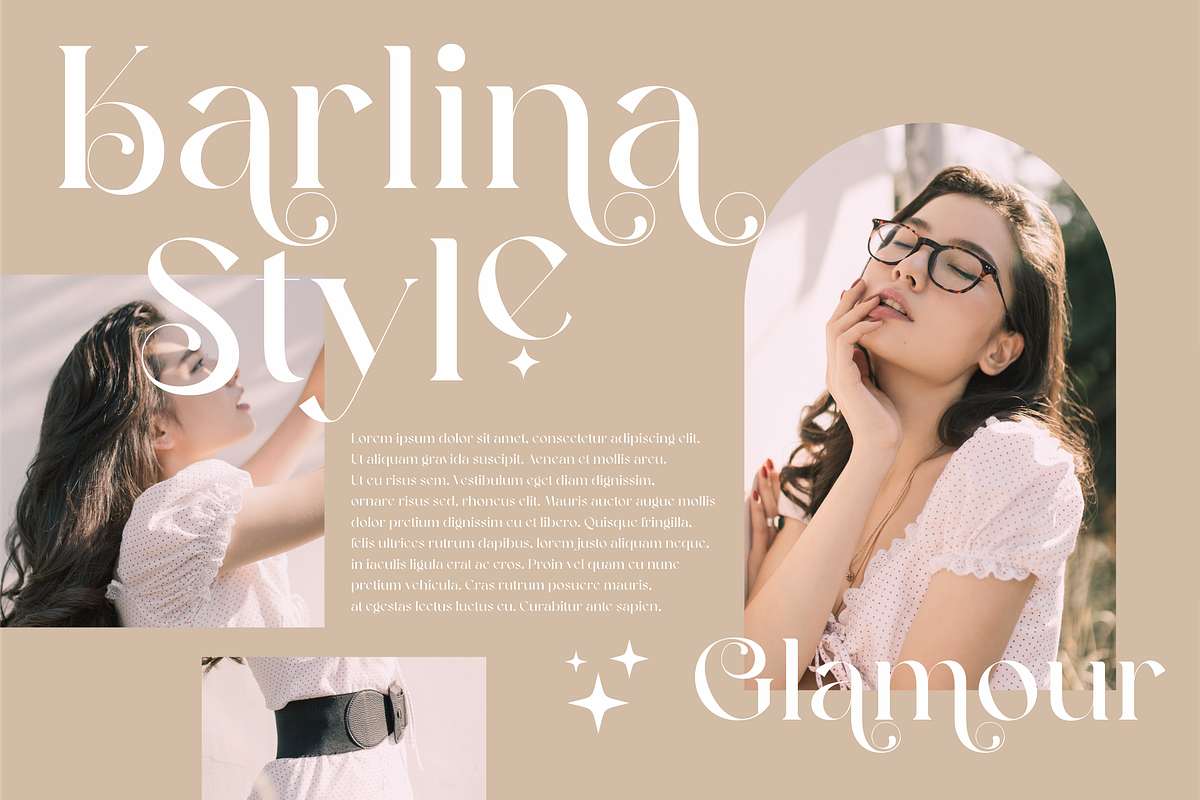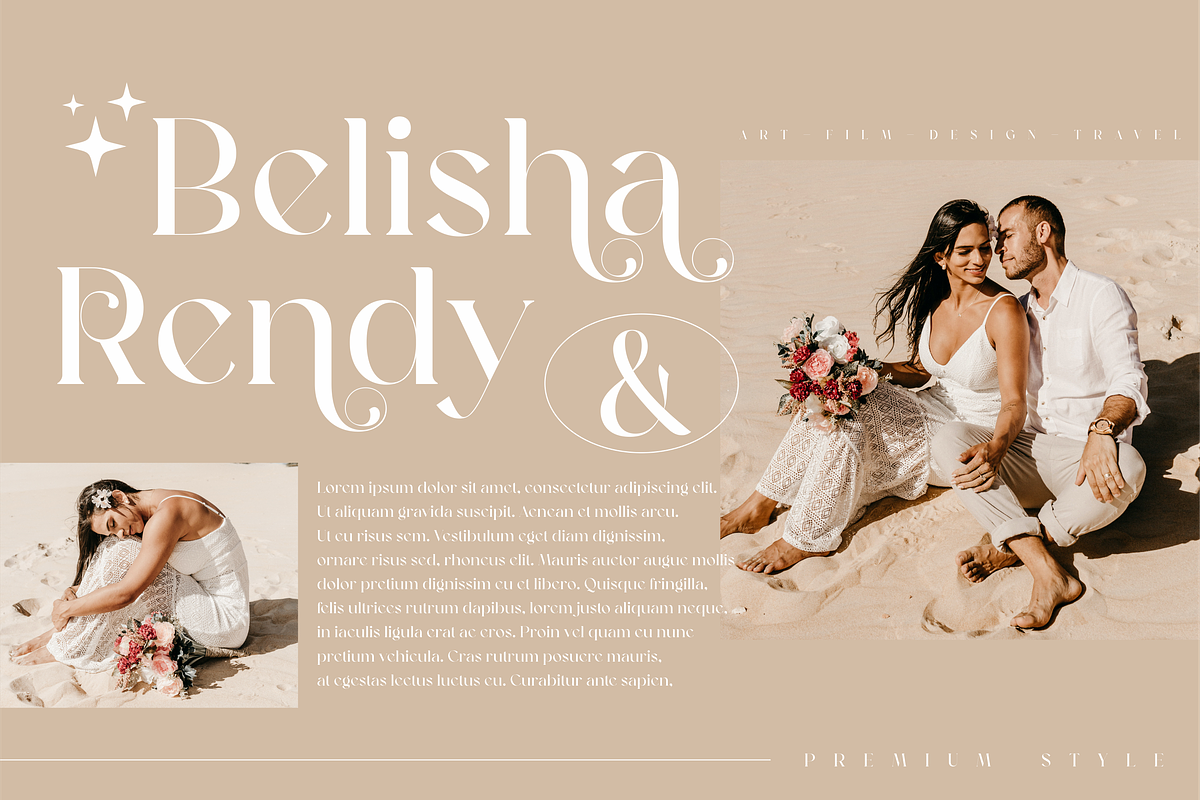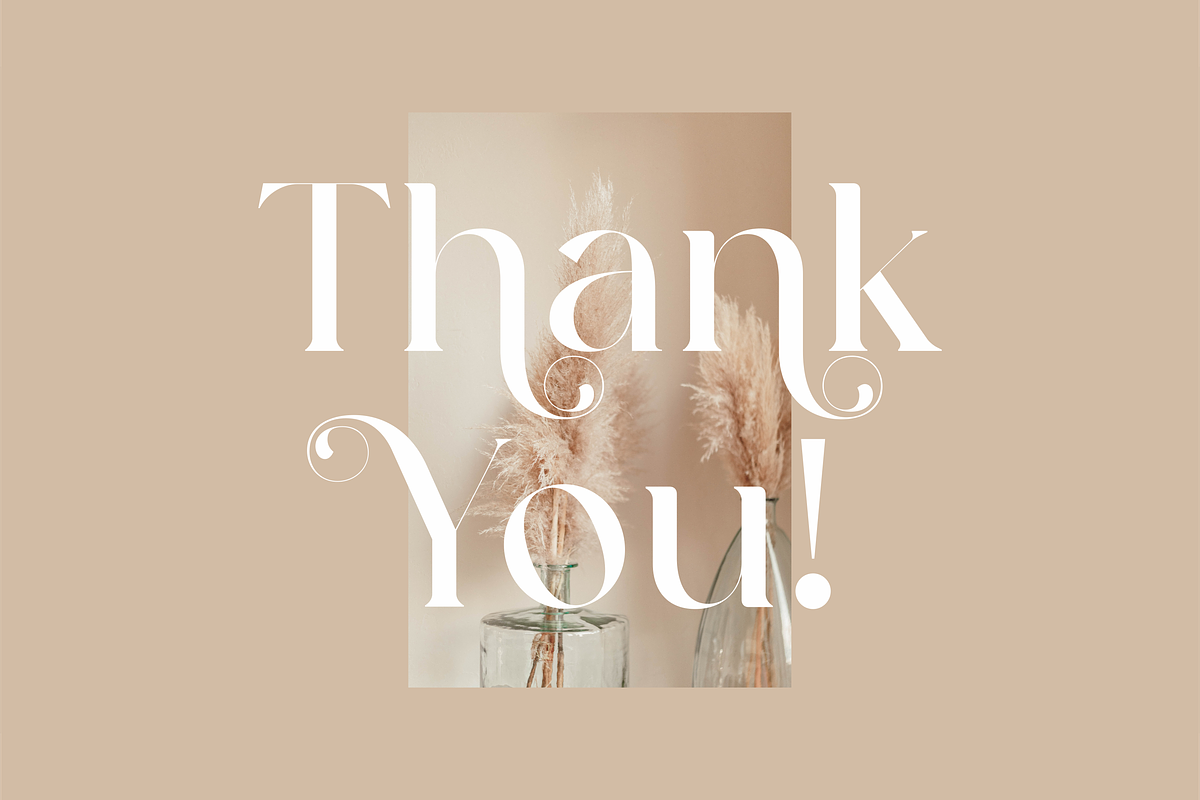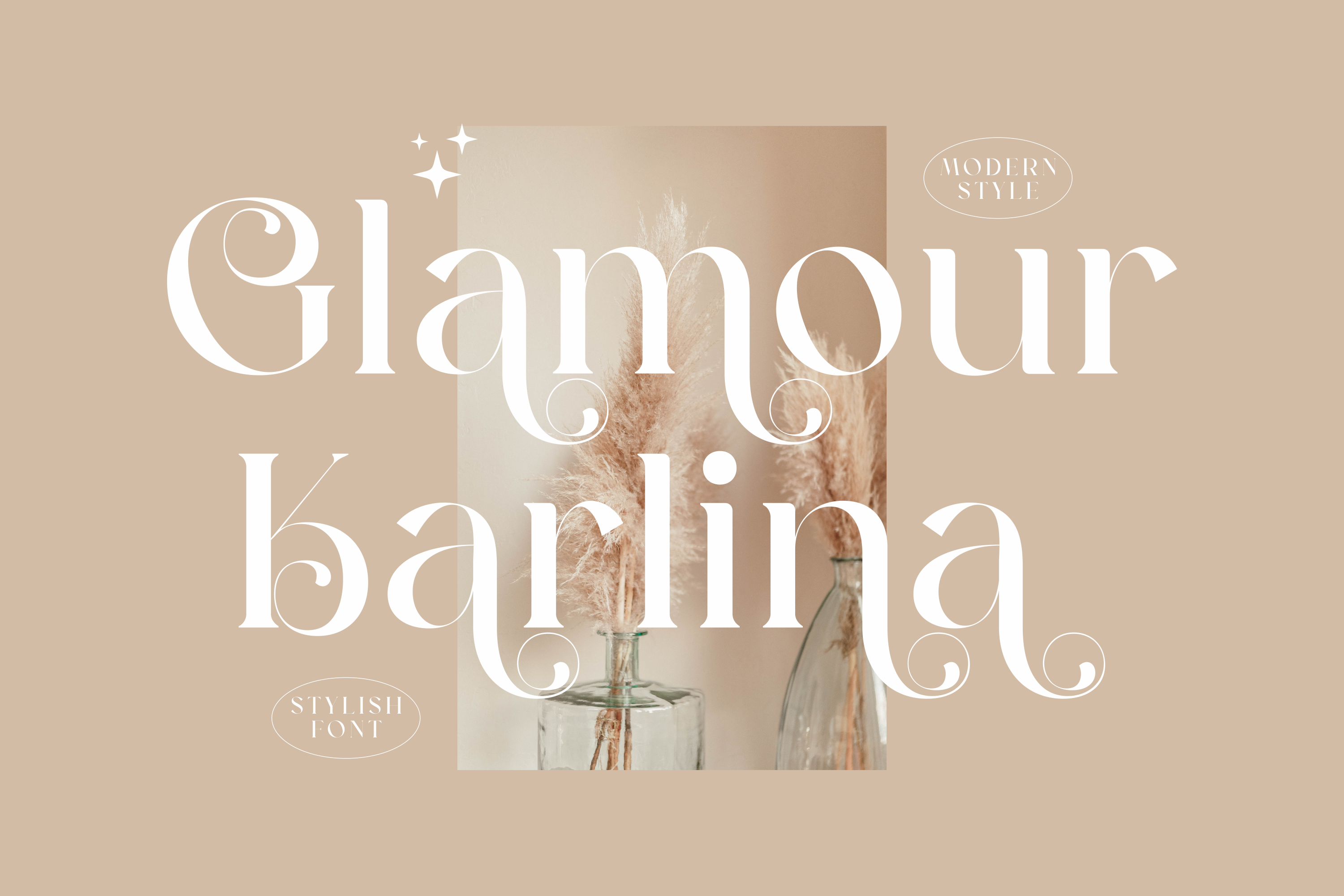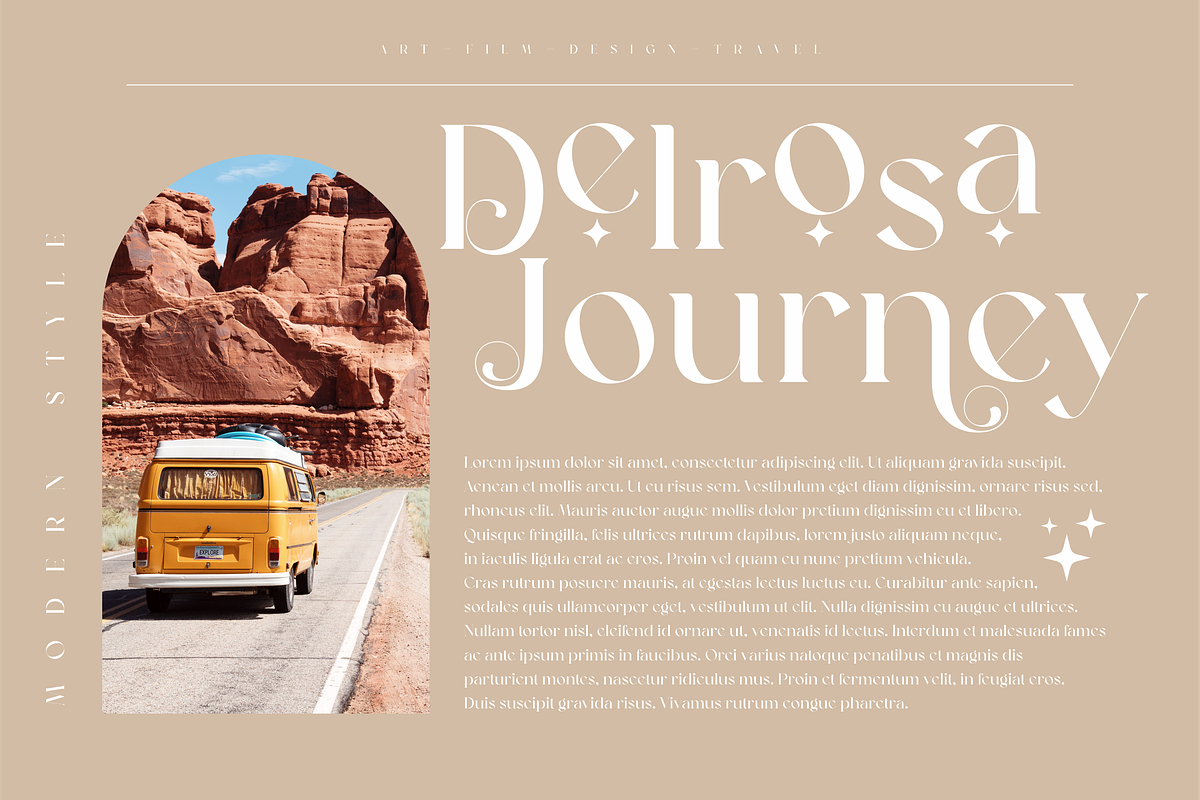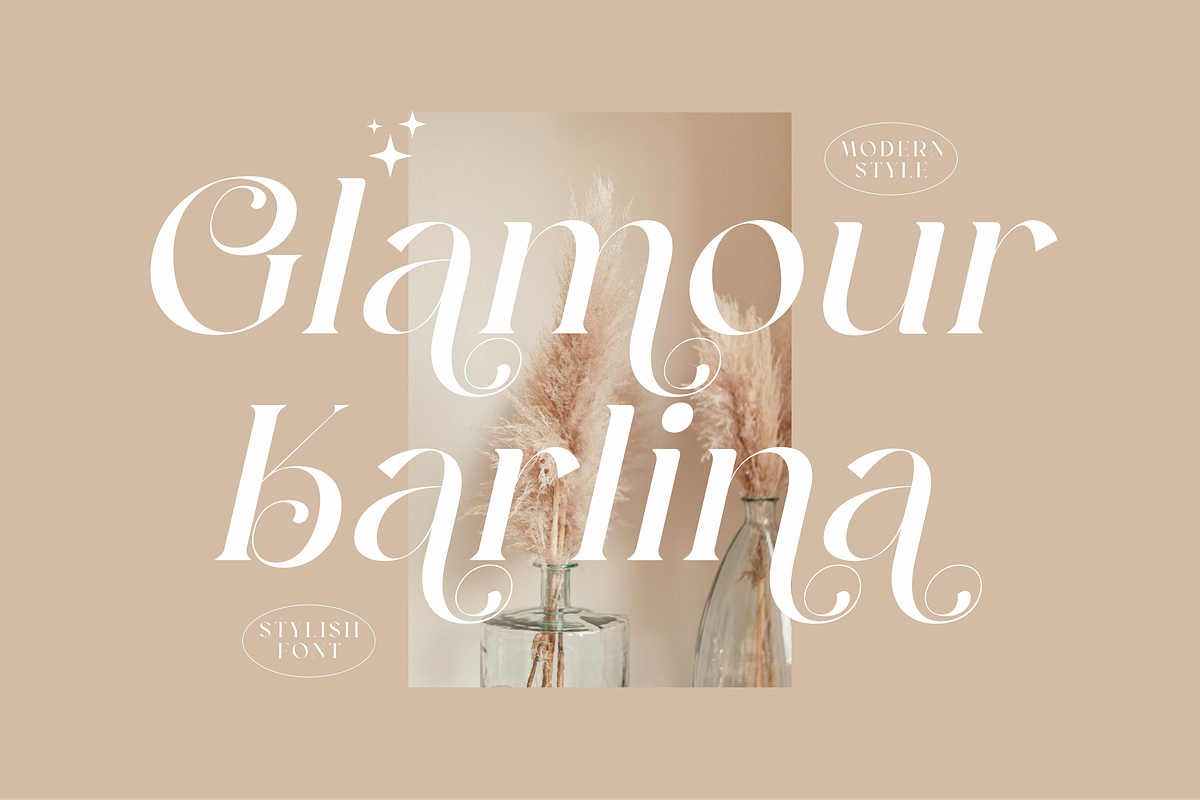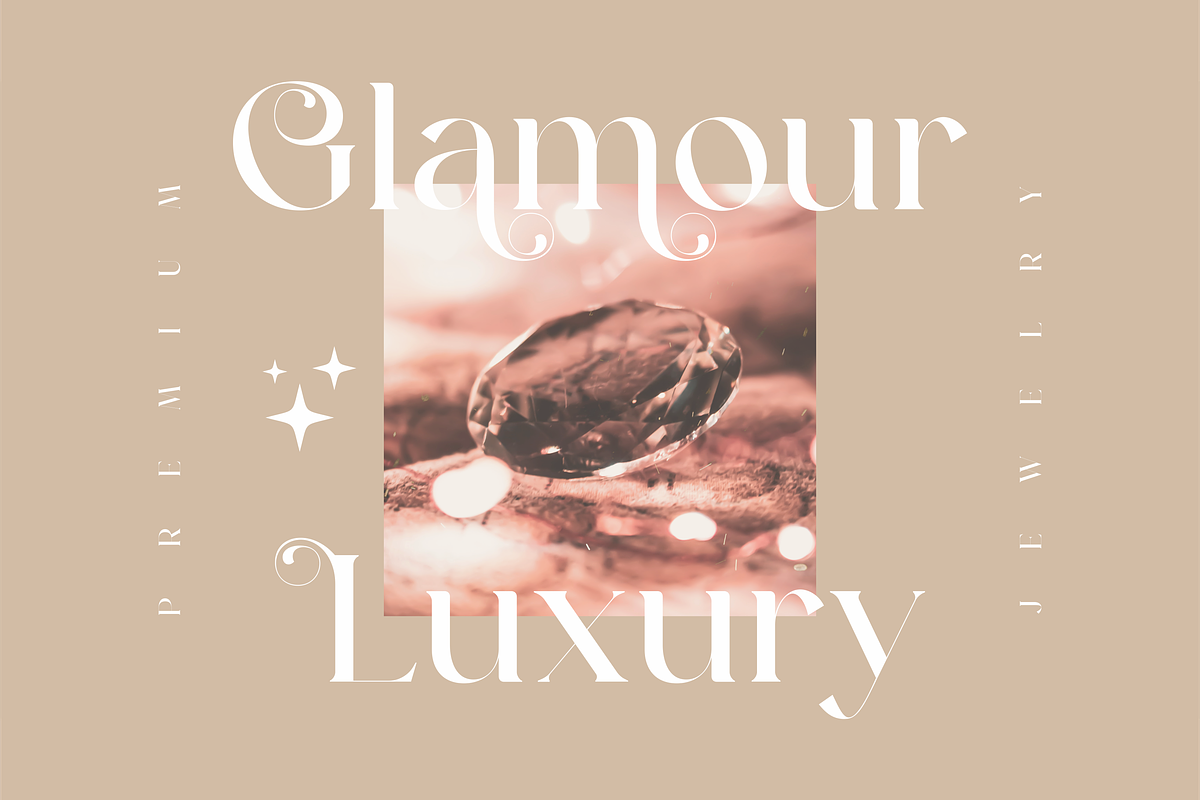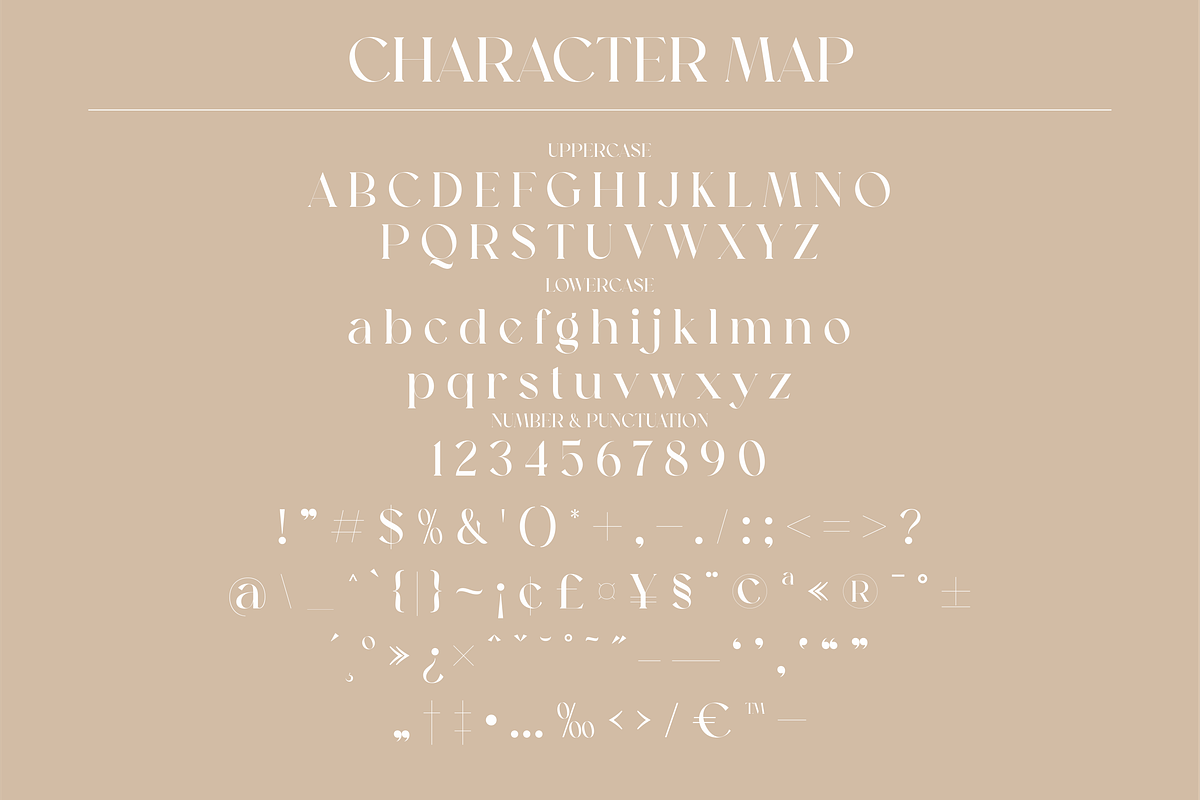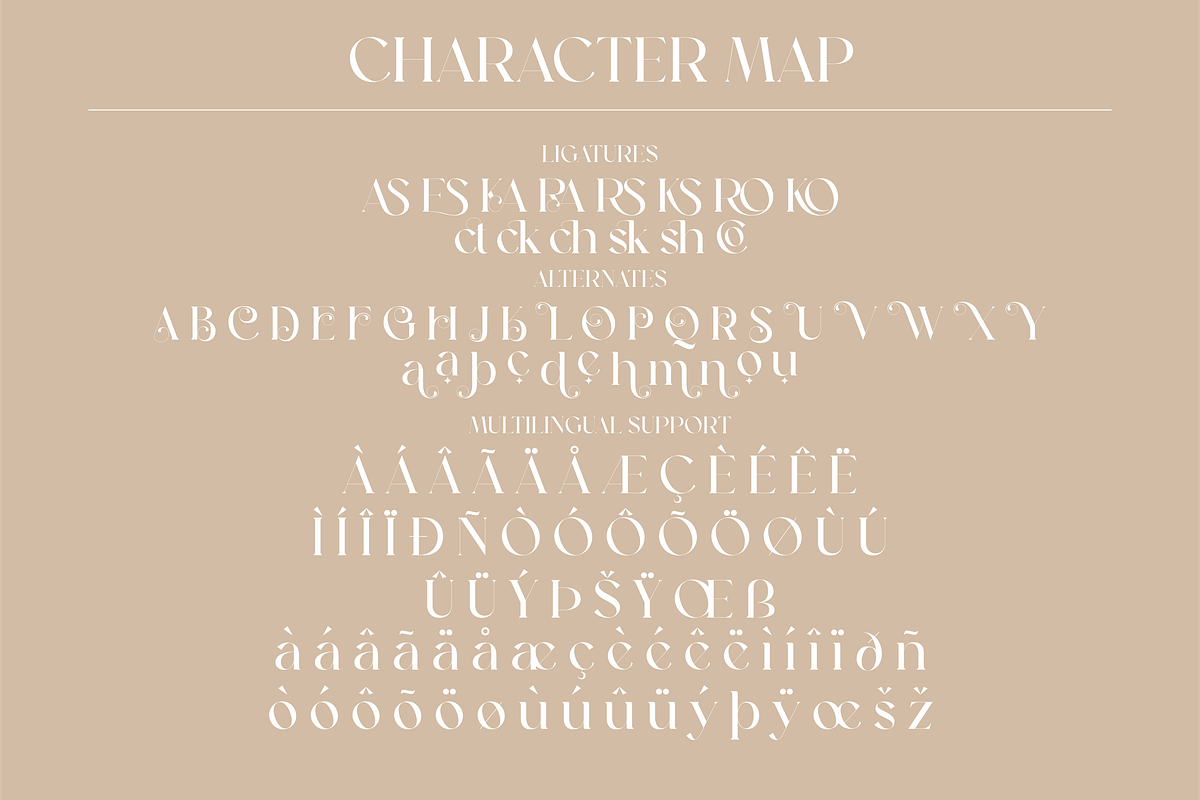
Glamour Karlina Luxury Serif Font
Proudly present Glamour Karlina Typeface, created by Storytype, A serif modern and classic typeface that has own unique style & modern look. This typeface is perfect for an elegant & luxury logo, book or movie title design, fashion brand, magazine, clothes, lettering, quotes, and so much more.